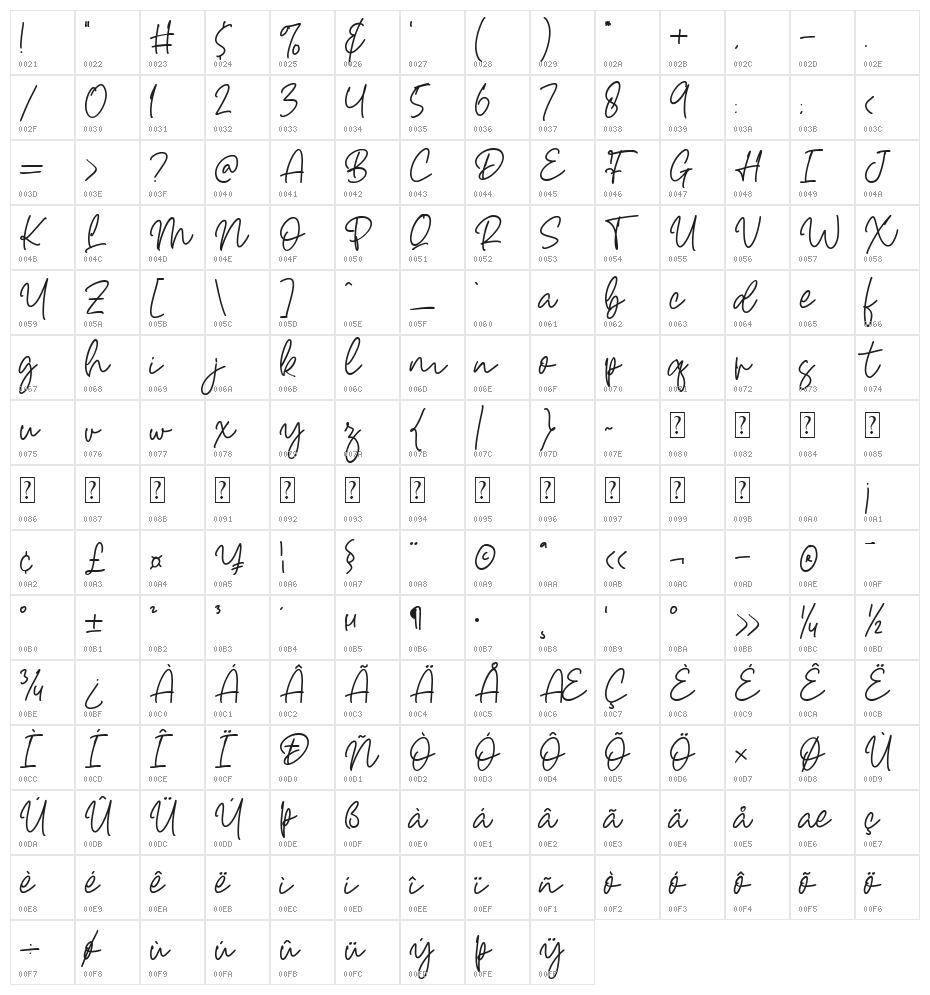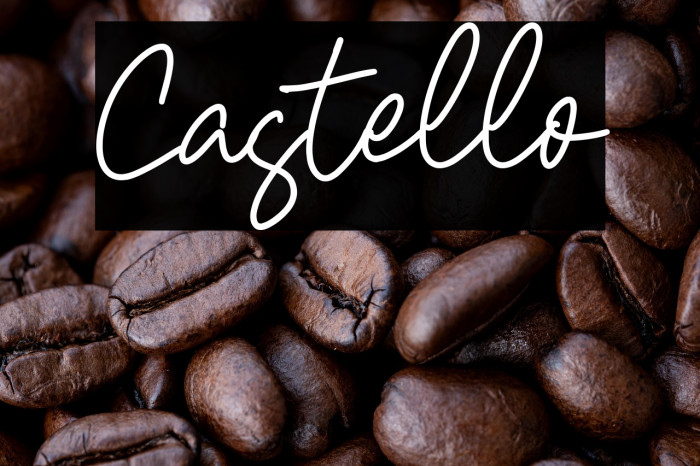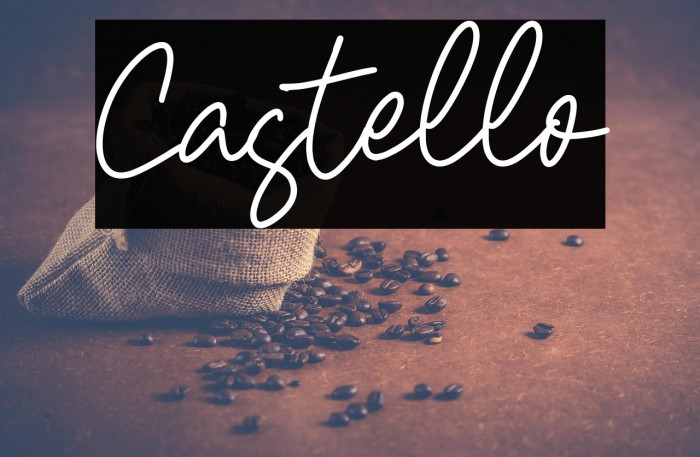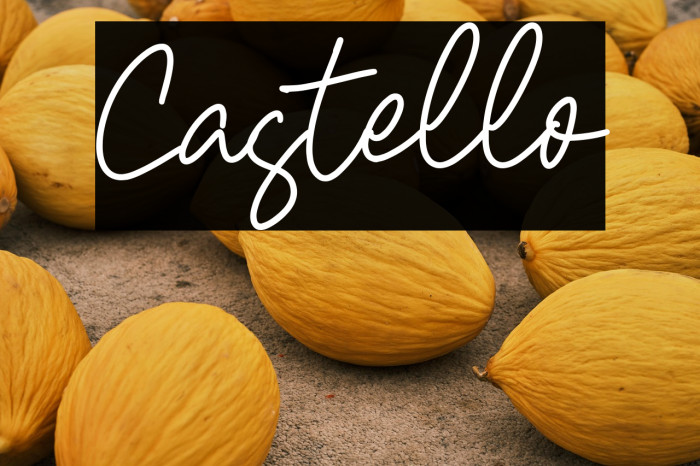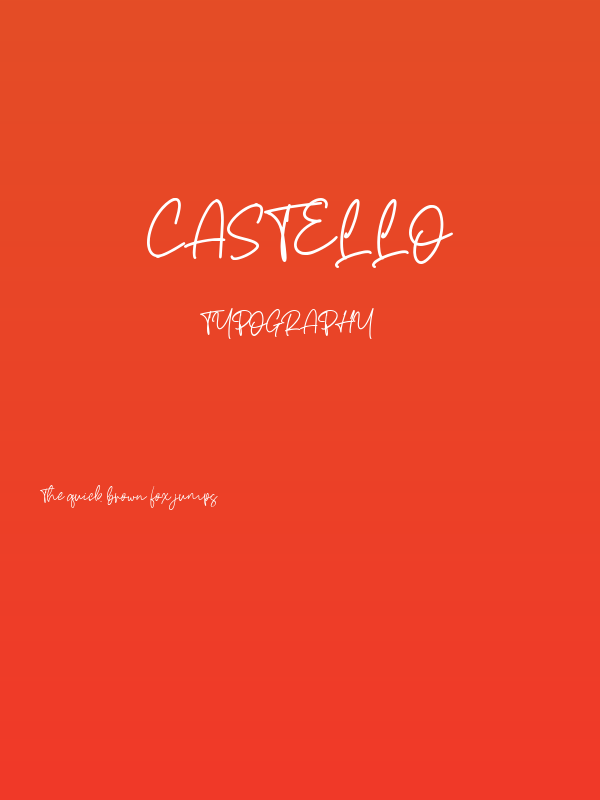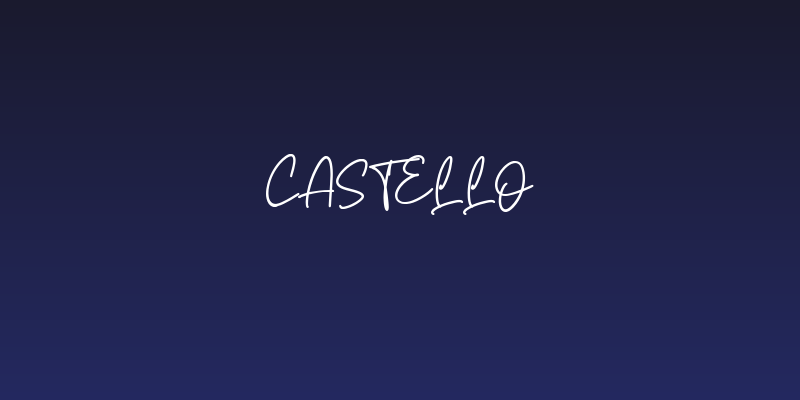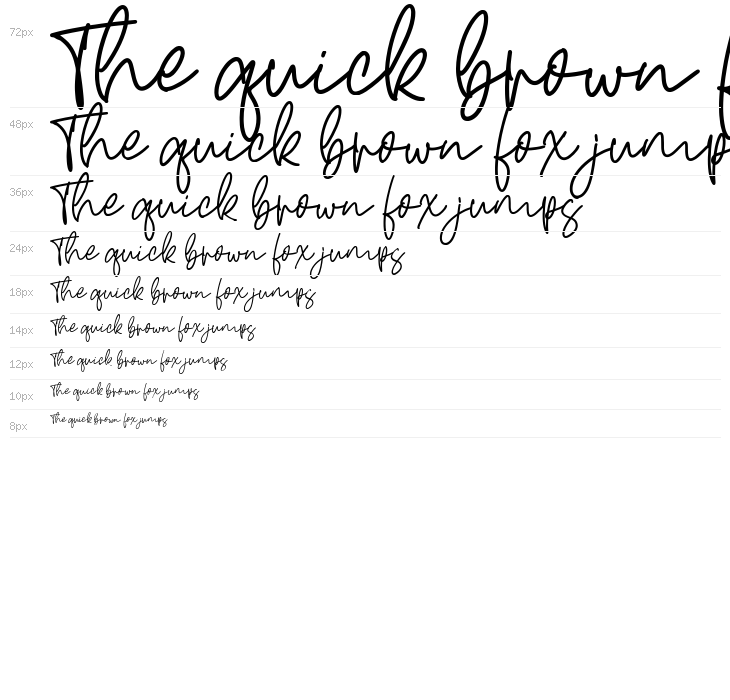
Castello Font
Castello Description
This font features a lively and dynamic handwritten style, characterized by fluid strokes and a casual, yet elegant appearance. The uppercase letters are slightly more structured, while the lowercase letters exhibit a more freeform, cursive quality. The numerals and special characters maintain the same energetic flow, making them cohesive with the alphabet. The overall design is reminiscent of personal handwriting, offering a sense of authenticity and warmth. This font is perfect for projects that require a personal touch or a creative flair.
| Overall Style | Casual, Elegant |
| Use Case | Logos, Invitations, Personal Branding |
| Proposed Projects | Ideal for greeting cards, invitations, personal branding, and creative projects that benefit from a handwritten touch. |